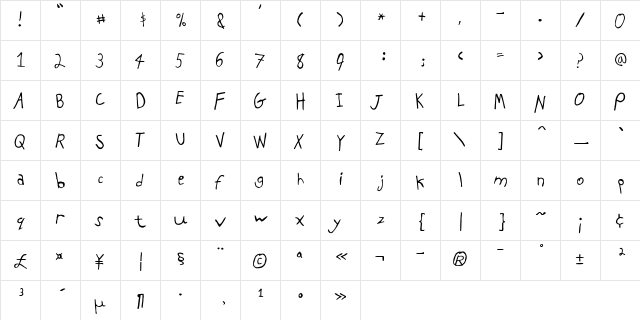
PF Kids Pro Grade One Regular
Design Context for PF Kids Pro Grade One Typeface
PF Kids Pro Grade One trades formality for fun, with bouncy, characterful letterforms that bring warmth and energy to any project.
Font Pairing: Pairs well with a rounded or humanist sans for body copy, maintaining the friendly tone without relying on PF Kids Pro Grade One to carry extended reading.
Pro Tip: Avoid using PF Kids Pro Grade One for long passages of text — it works best for headlines, labels, and short calls to action.